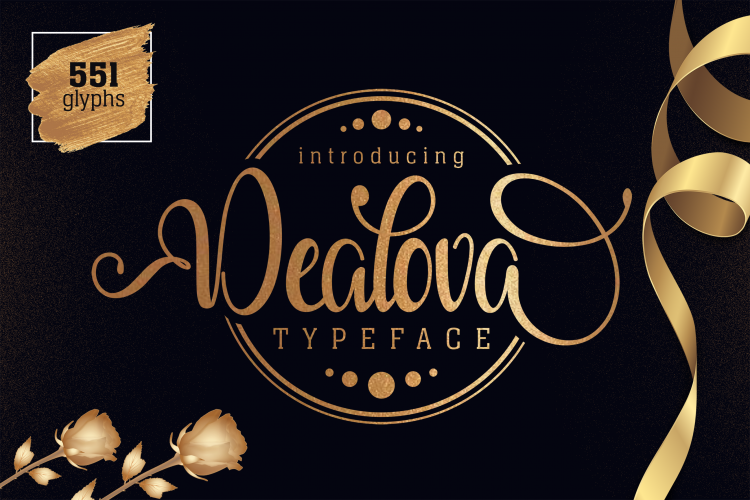
Dealova Script Font
Start a new day with a romantic calligraphy script font. Introducing Dealova Font. Dealova designed and shared by afredo.fk. Dealova Script Font a new fresh & modern script with a handmade calligraphy style, decorative characters and a dancing baseline! So beautiful on invitation like greeting cards, branding materials, business cards, quotes, posters, logo and more!!